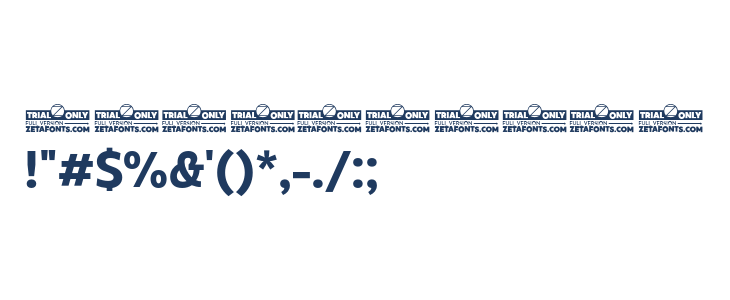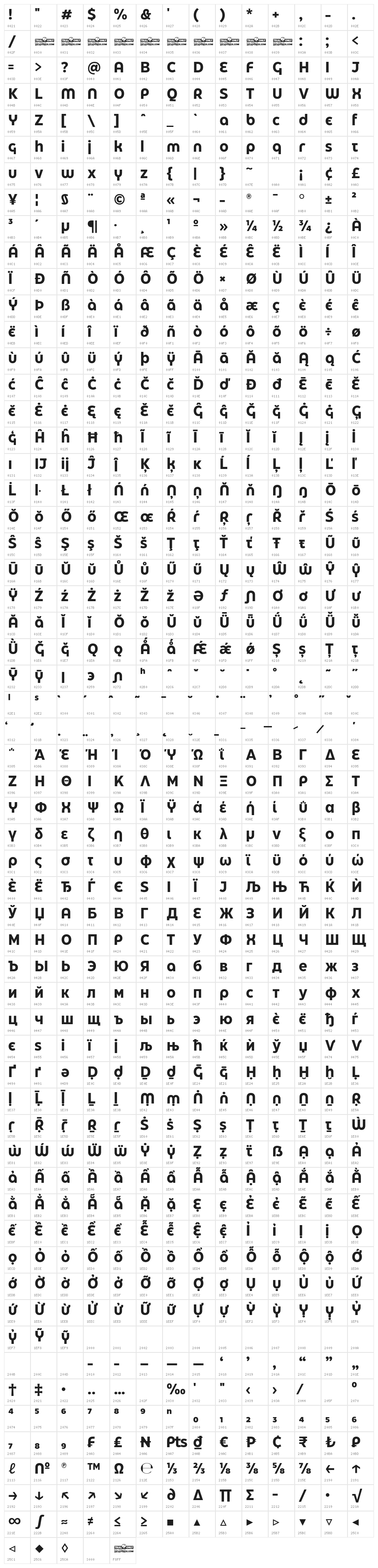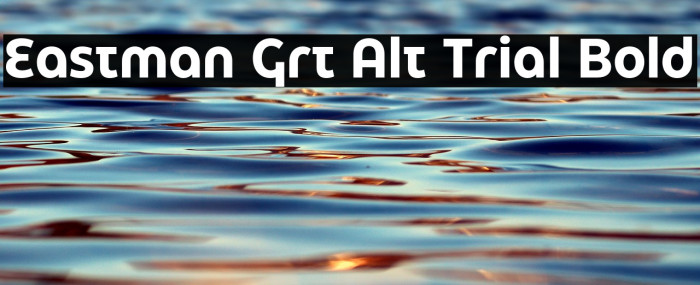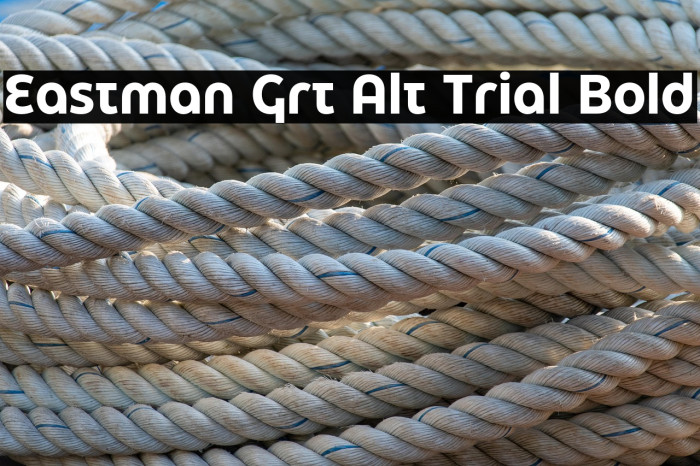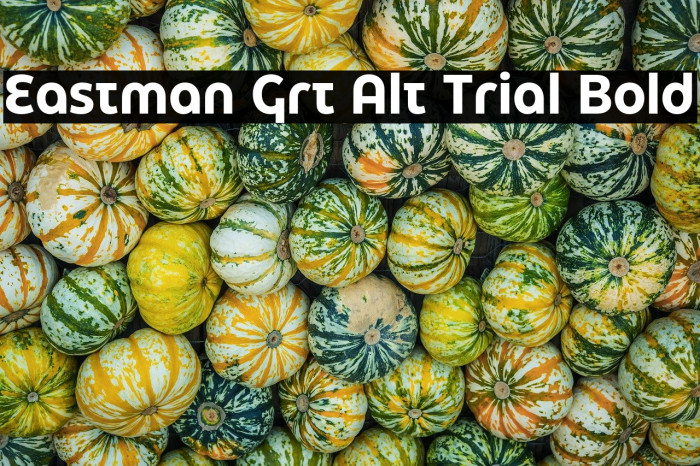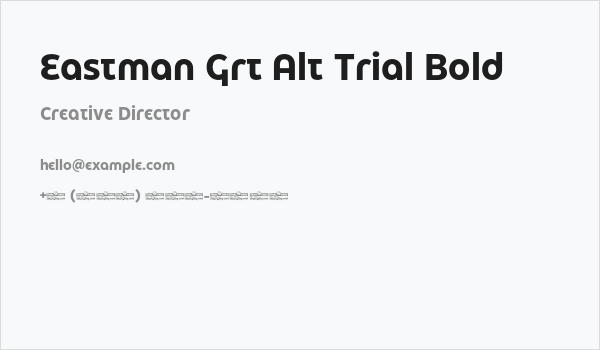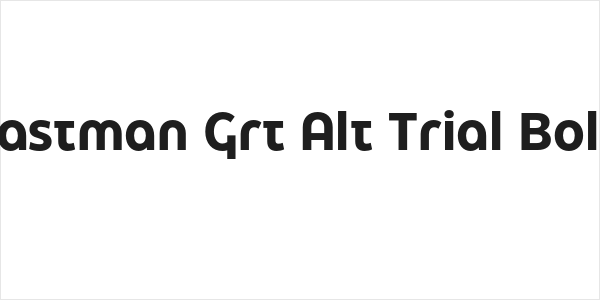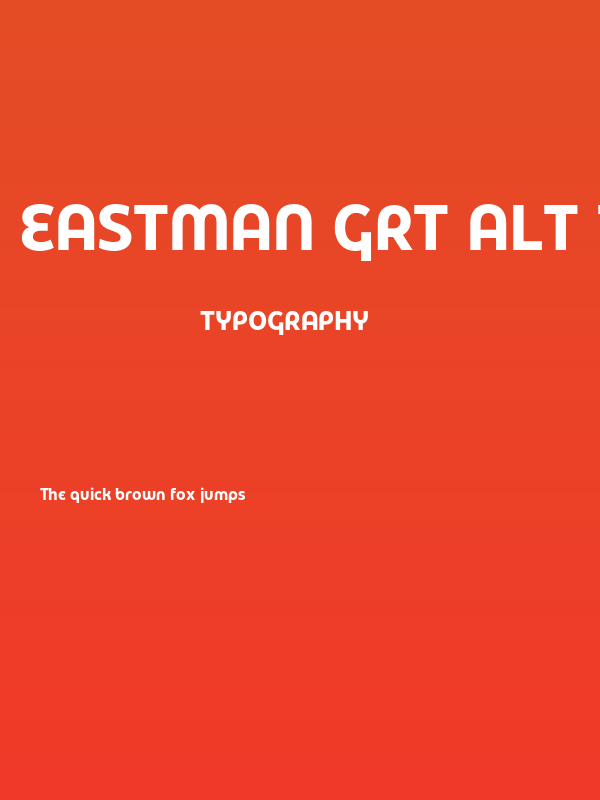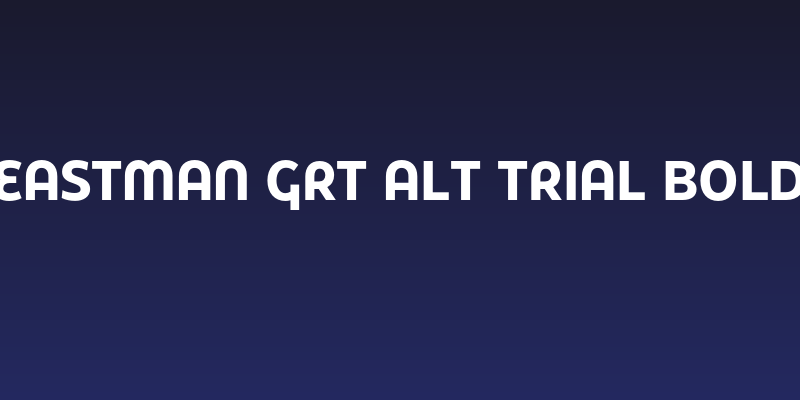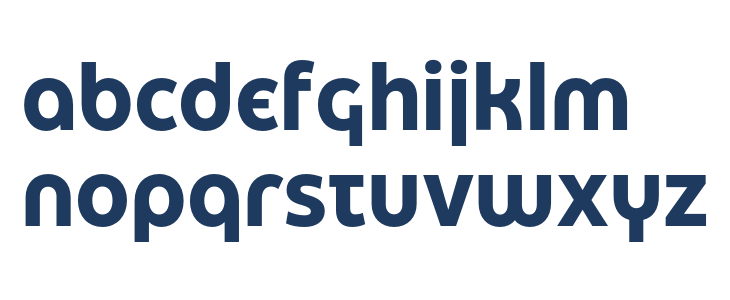
Eastman Grt Alt Trial Bold Font
Eastman Grt Alt Trial Bold Description
This font features a bold and modern design with a geometric structure. The characters are rounded with a consistent stroke width, giving it a clean and contemporary look. The uppercase and lowercase letters maintain a uniform appearance, while the numerals and special characters are designed to complement the overall style. Its boldness and clarity make it suitable for impactful designs.
| Proposed Projects | Ideal for branding, headlines, posters, and digital media where a strong, modern presence is needed. |